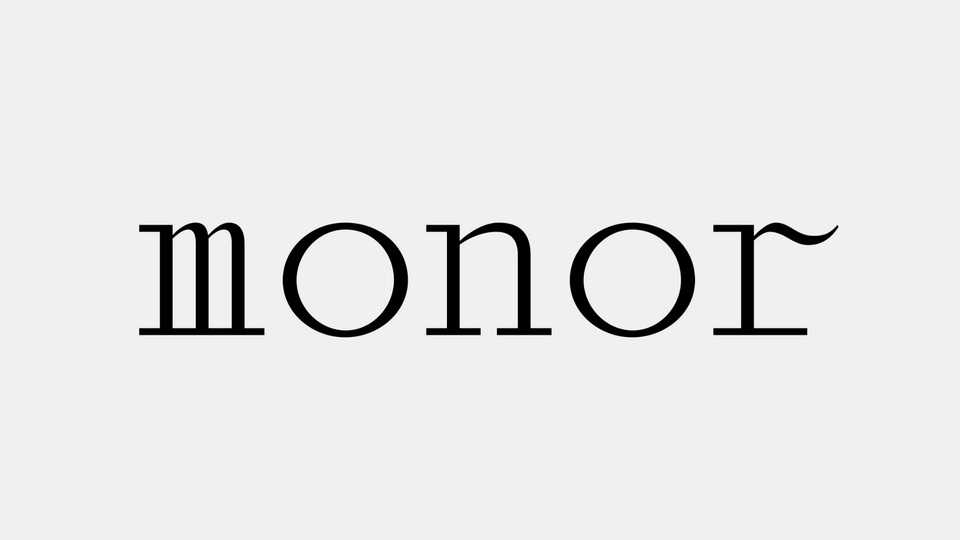
Download Monor font, a serif typeface, an attempt to reconcile and unite traces of calligraphic design with the rigidity of monospace type through systematic construction.
Designer: Cédric Rossignol Brunet